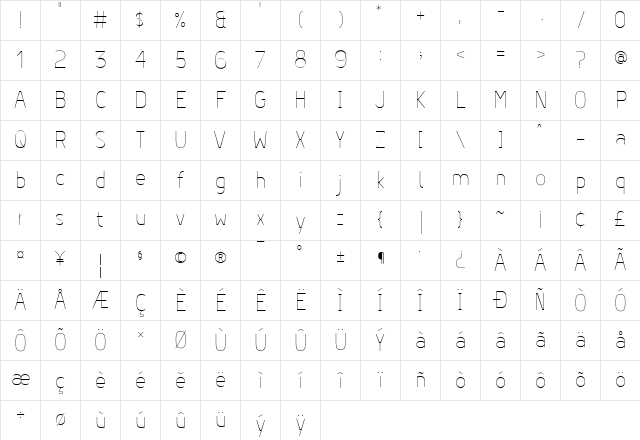
Hyperjump Regular Free Font
Hyperjump Regular
Designer: toufique.islam
Design Context for Hyperjump
Hyperjump is a composed and adaptable typeface that performs quietly and consistently across a wide range of design contexts.